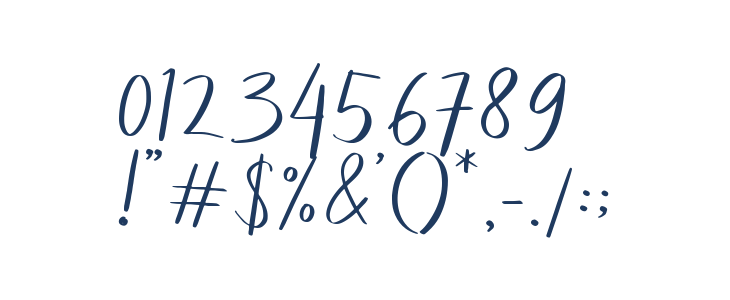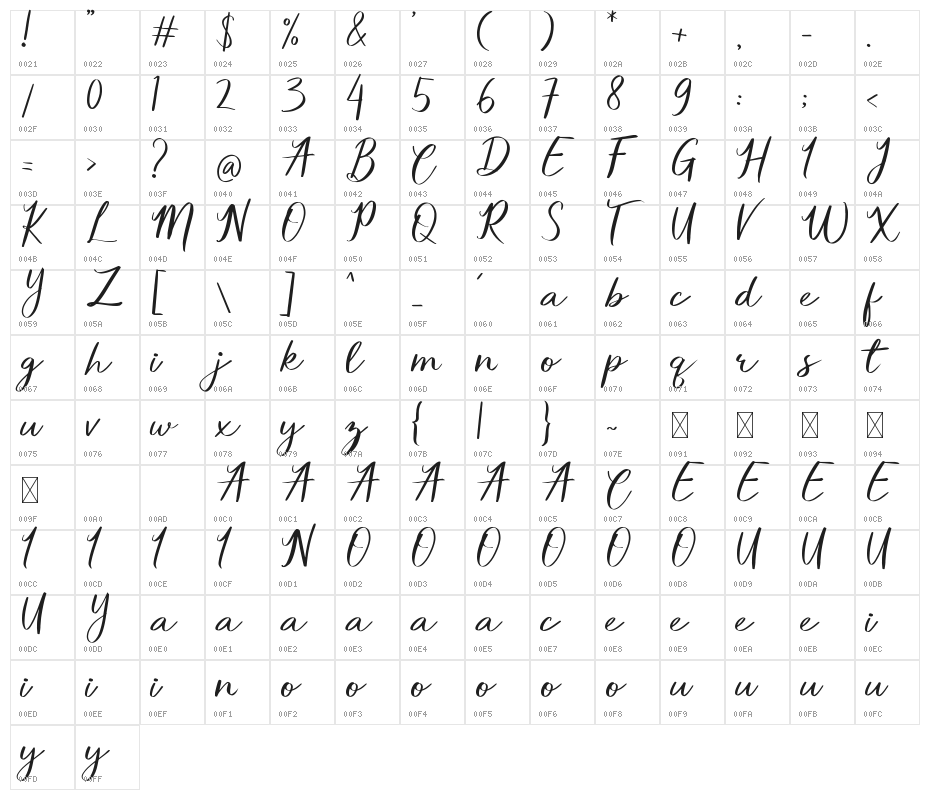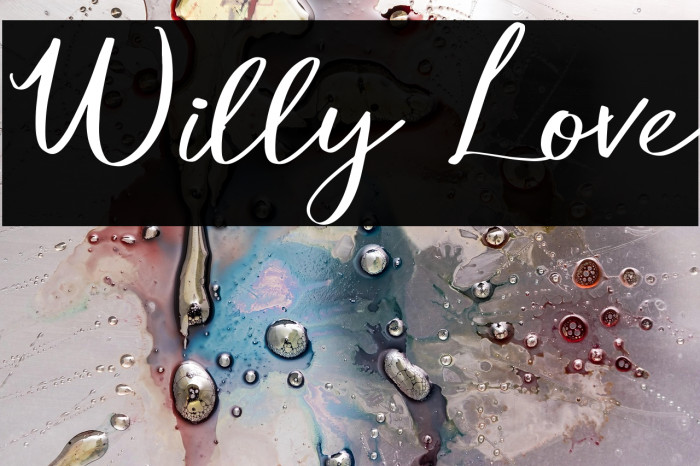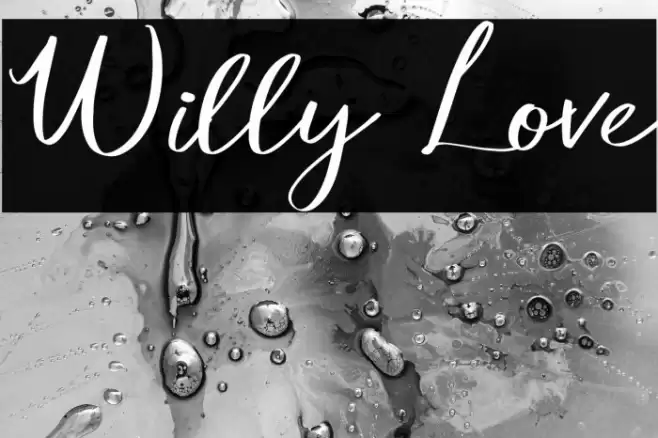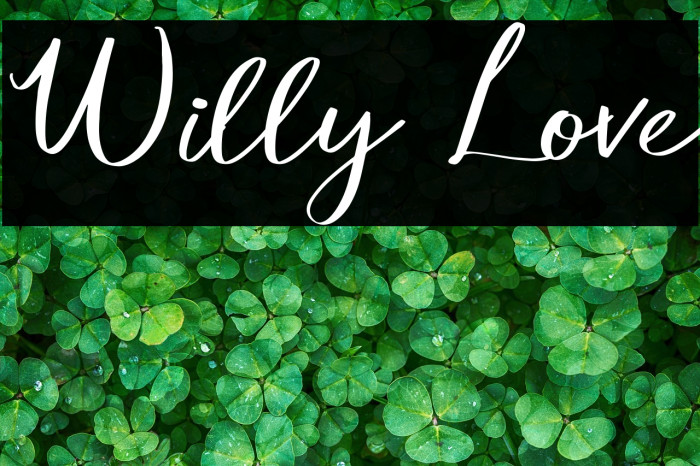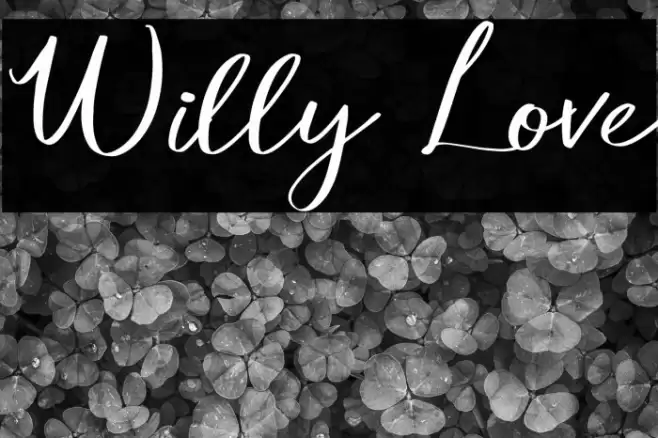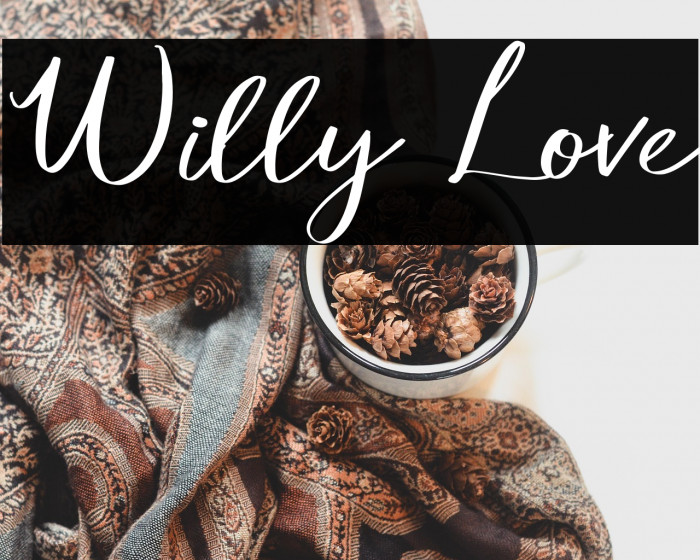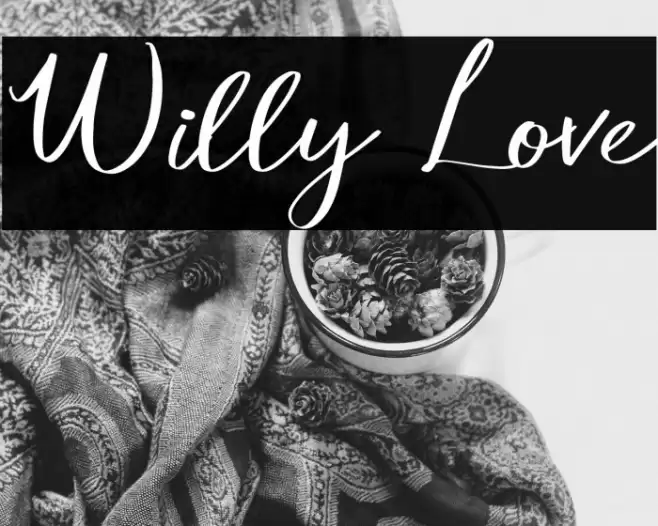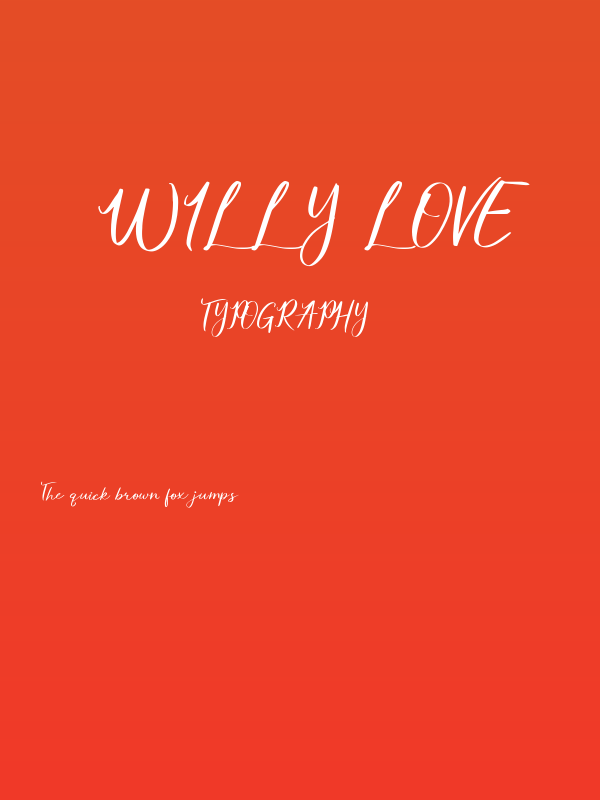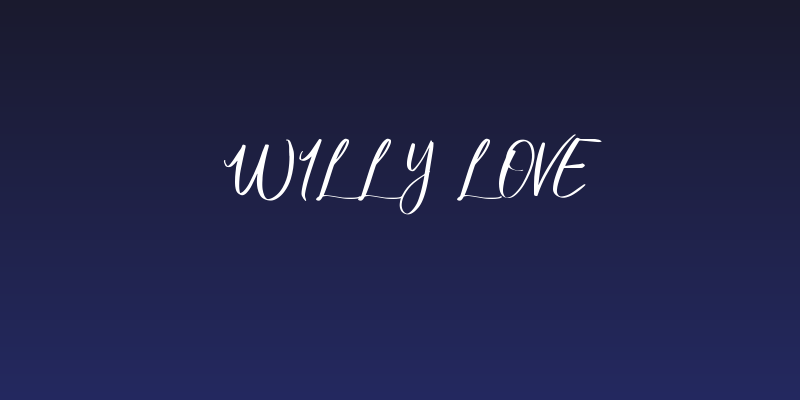
Willy Love Font
Willy Love Description
This font exudes a lively and elegant script style, characterized by its fluid, cursive strokes that mimic the natural flow of handwriting. The uppercase letters are bold and slightly slanted, adding a dynamic feel, while the lowercase letters maintain a consistent rhythm with smooth connections. The numerals are distinct and well-balanced, complementing the overall aesthetic. Special characters are thoughtfully designed, integrating seamlessly with the alphabet. This font's playful yet sophisticated appearance makes it versatile for various creative applications.
| Use Case | Logos, Invitations, Social Media |
| Proposed Projects | Ideal for wedding invitations, greeting cards, branding, and social media graphics. |